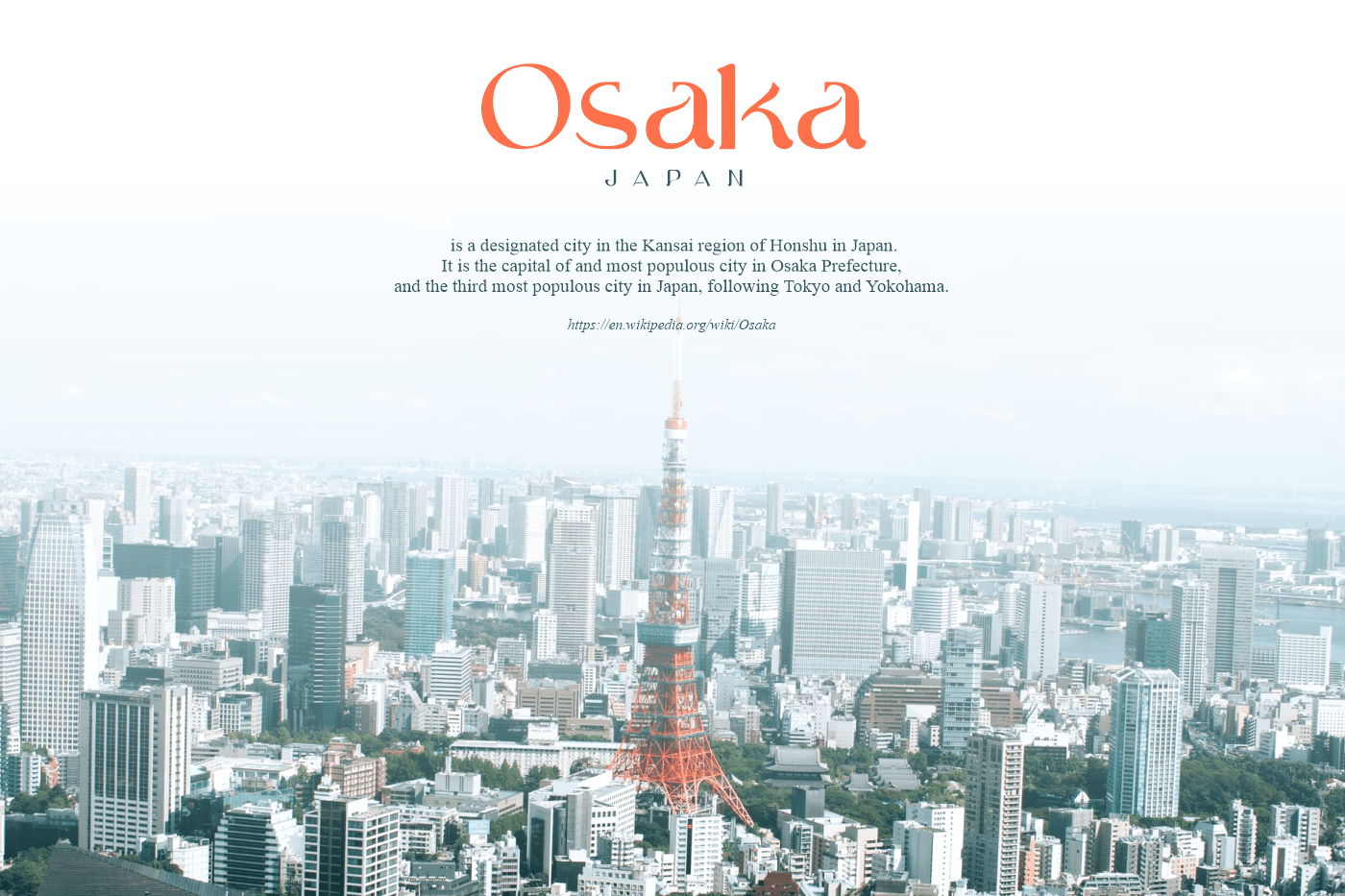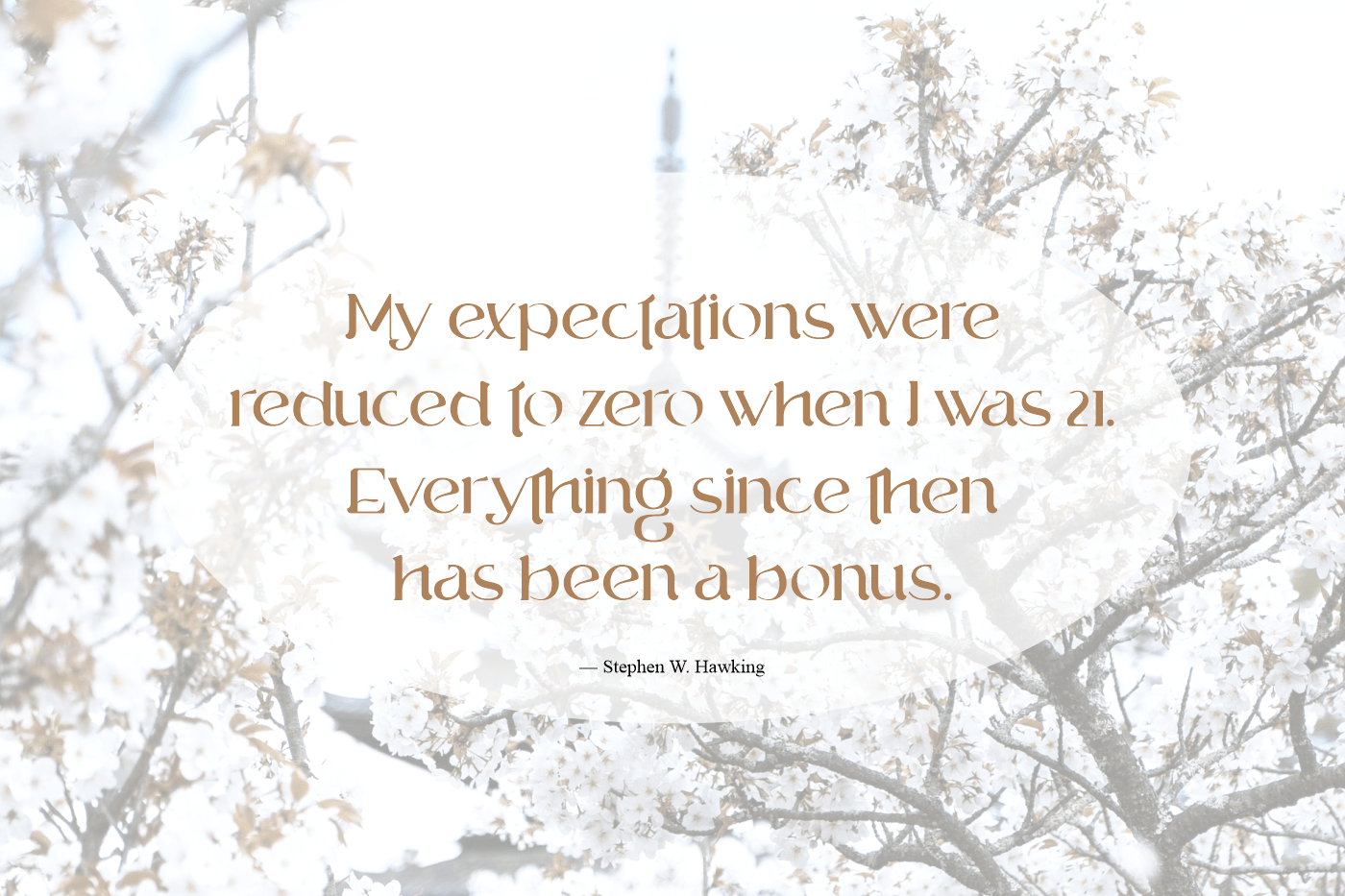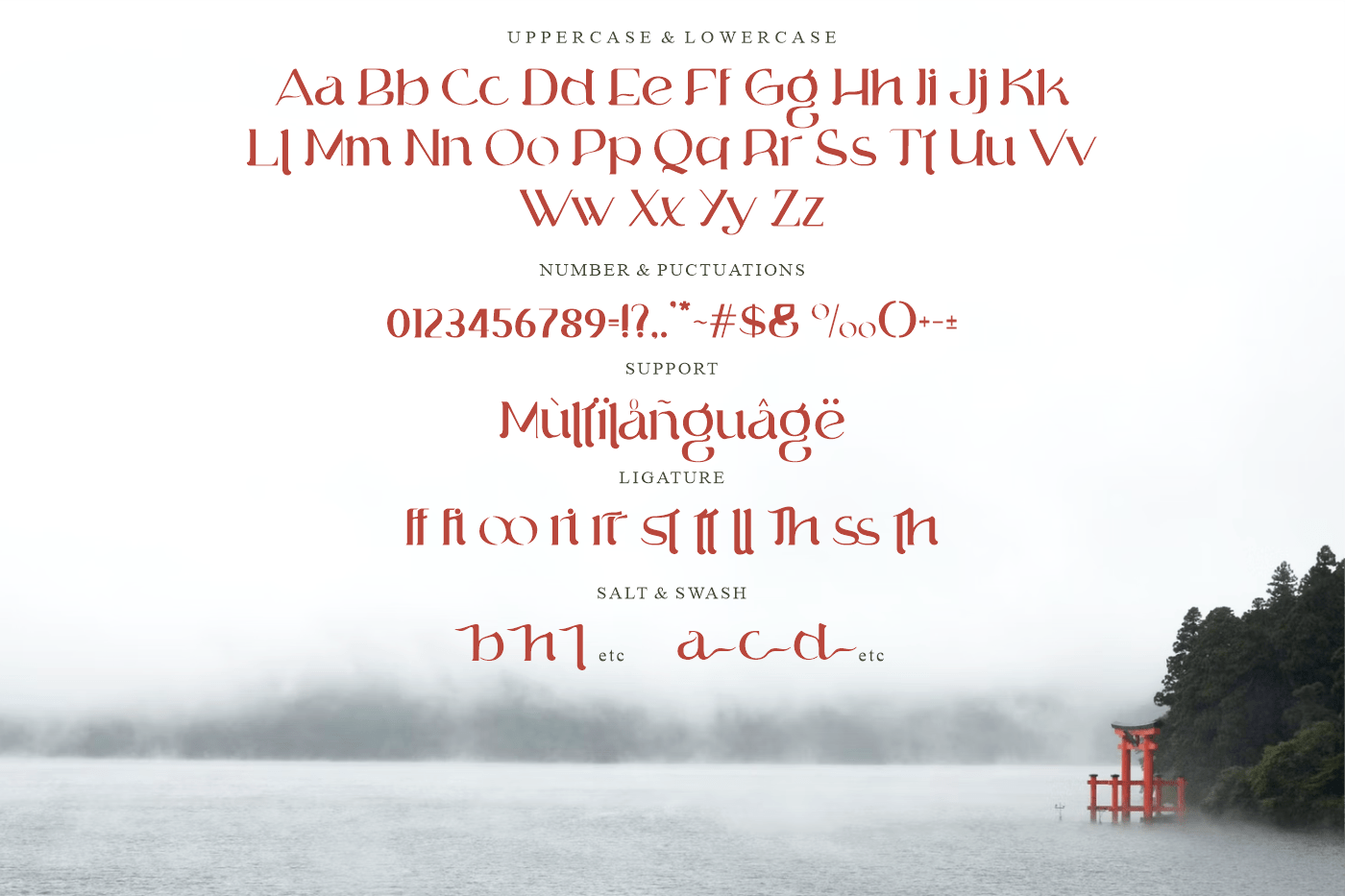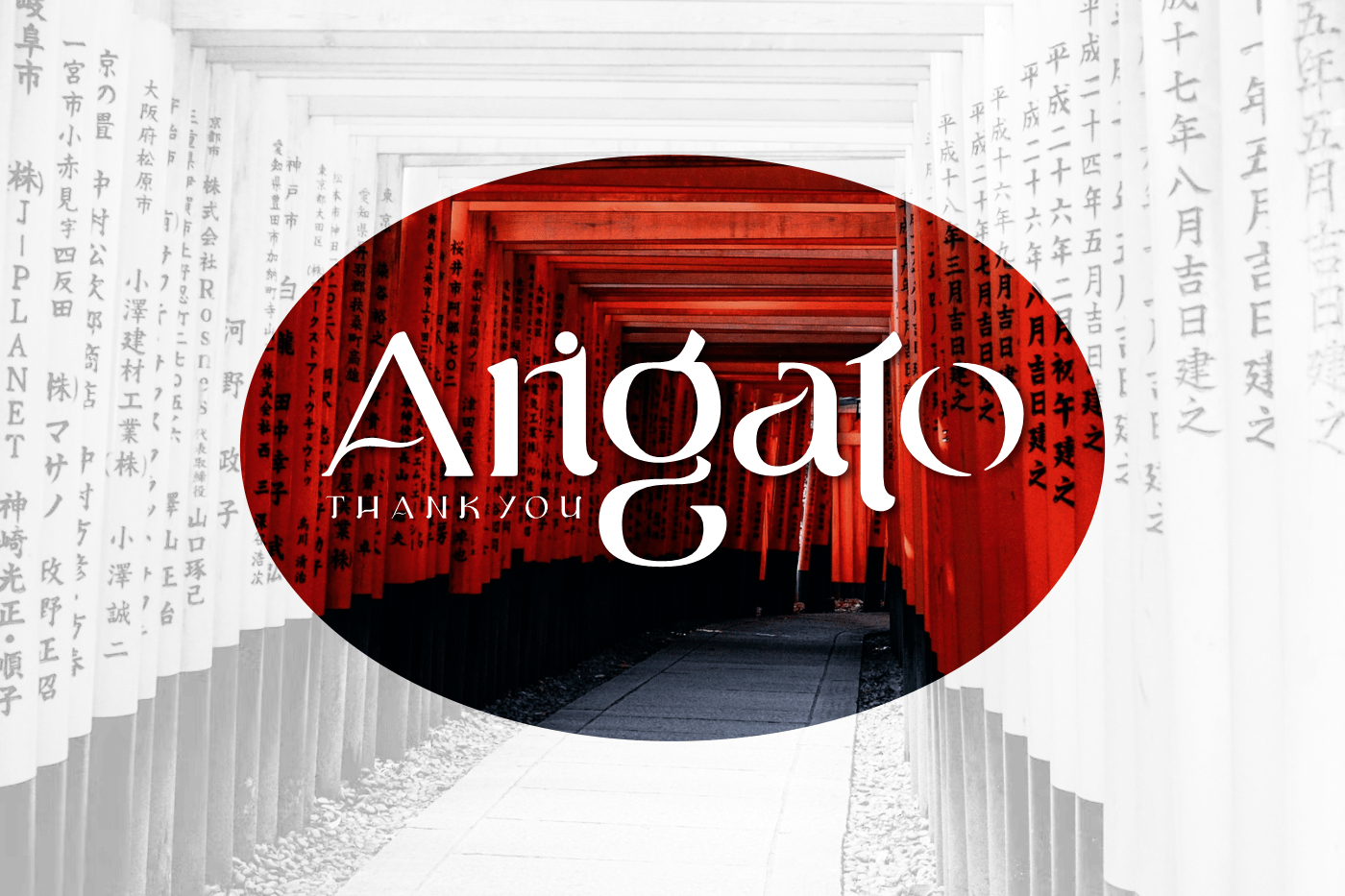
Sigokae Serif Font
This is a sans serif font with a Japanese theme. A simple shape with a combination of distinctive curves with a touch of creativity, this font looks like Japanese letters. Overall this font looks simple and feels Japanese